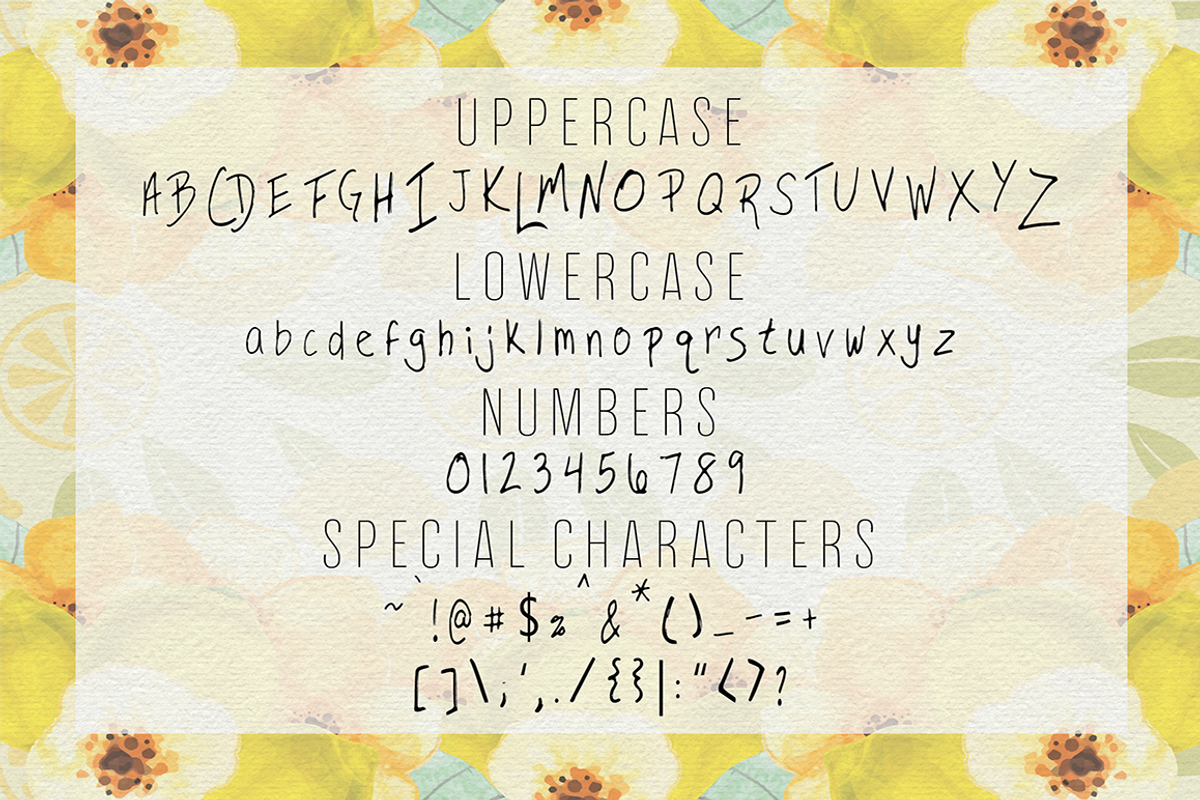
Lemon Cake OTF Font
Lemon Cake OTF Font by Hunt Family Design is a font selected for branding, posters, packaging, typography.
Lemon Cake OTF Font by Hunt Family Design fits naturally into Branding, posters, packaging, typography.